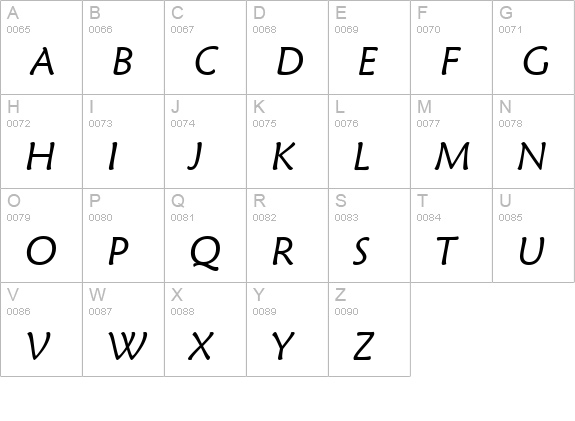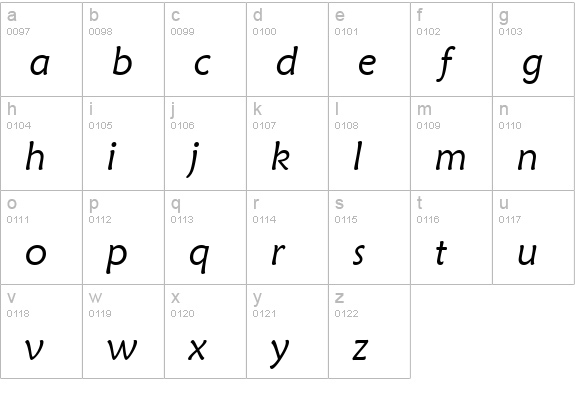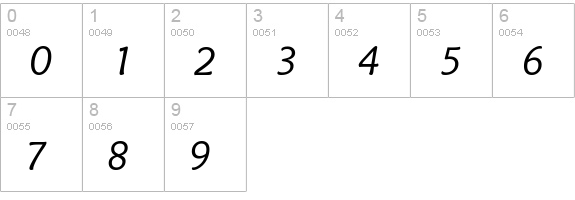
Maiandra Italic GD Font Details
Maiandra Italic GD is a distinctive, italic variant in the Maiandra typeface family \xE2\x80\x94 well suited to design and typography projects.
Maiandra Italic GD is a stunningly elegant font that effortlessly combines the timeless beauty of calligraphy with a modern touch. Its flowing letterforms and graceful curves create a sense of sophistication and refinement, making it the perfect choice for projects that require a touch of class. The delicately slanted italic style adds a touch of flair and expressiveness, making Maiandra Italic GD a versatile font that can be used for a variety of design purposes. Whether it's for invitations, branding, headlines, or any other creative endeavor, this font will bring a touch of elegance and professionalism to your work. One of the best things about Maiandra Italic GD is that it is free! Yes, you read that right. This exquisite font is freely available to download at FontsMarket.com. Now, you can enhance your design projects with this premium-quality font without having to spend a dime. So why wait? Go ahead and visit FontsMarket.com to download Maiandra Italic GD now and unlock a world of endless creative possibilities. With this font in your toolkit, you'll be able to elevate your designs and captivate your audience with its timeless beauty.